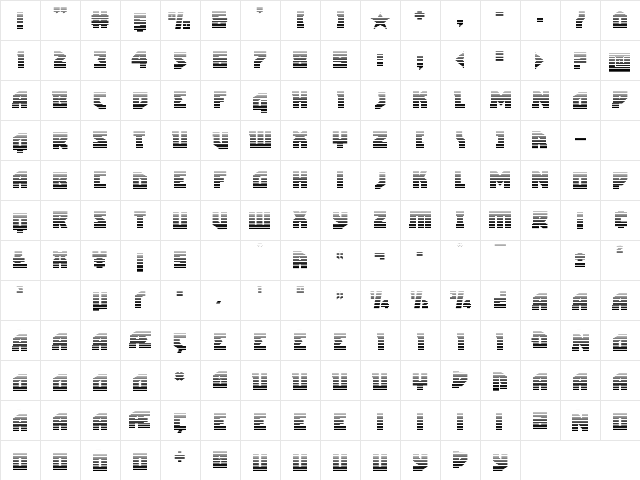
Arctic Guardian Gradient Regular
Design Context for Arctic Guardian Gradient Typeface
Arctic Guardian Gradient is a composed and adaptable typeface that performs quietly and consistently across a wide range of design contexts.